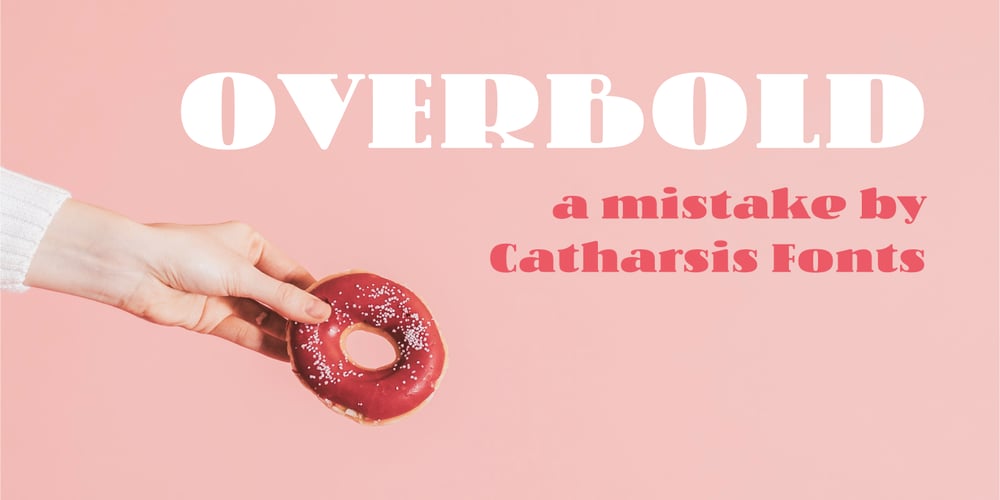
Overbold
Overbold font
Overbold Font Family was designed by Christian Thalmann and published by Catharsis Fonts. Overbold contains 2 styles and family package options. Overbold is an unapologetic display typeface inspired by an illustration in Eric Gill’s Essay on Typography (p.51), in which he demonstrates �how not to make letters�. In particular, he shows that increasing the weight of the downstroke in a serif �A� without structural adjustments yields an absurd, �overbold� result. I found the letter so charming that I decided to blatantly disregard Gill’s wisdom and draw an entire overbold typeface. Here is the result. I’m not sorry.